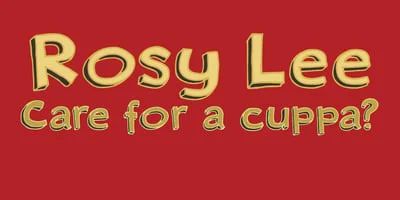
Rosy Lee Font
Rosy Lee Font is perfect for tea shops, British cafes, vintage tearoom signage, afternoon tea invitations, cozy bistro branding, traditional bakeries, English garden parties, quaint bed & breakfasts, and charming British hospitality communications. This delightful typeface brings tea time charm and British countryside warmth to projects requiring cozy typography with traditional appeal and heartwarming character.
What makes Rosy Lee Font exciting is its tea time charm that captures the quintessential warmth of British tea culture and countryside hospitality with remarkable coziness and authentic British character that evokes memories of afternoon tea and garden parties. The font features friendly letterforms with gentle curves and welcoming proportions that reflect the comforting tradition of tea service and the intimate atmosphere of English tearooms. Its heartwarming personality and traditional nature make it irresistible for hospitality brands seeking typography that communicates genuine warmth while celebrating the timeless appeal of British tea culture and countryside charm.
The Rosy Lee Font family includes cozy weights and British styles: Light, Regular, Medium, Bold, and decorative variations with tea alternates and British symbols. Each weight maintains the font's charming character while offering designers creative flexibility for hospitality branding and traditional design applications requiring authentic British atmosphere and tea time visual presentation.
Whether you're designing for tearooms or British-themed venues, Rosy Lee Font offers designers a charming, tradition-focused typeface solution. The font's British aesthetics and cozy styling make it ideal for tea shops, English pubs, countryside inns, and traditional hospitality businesses. Its welcoming presence ensures your message communicates warmth and tradition while maintaining excellent tea time readability. The comprehensive character set includes British symbols and tea decorations, making it perfect for creating inviting headlines and brand identities that celebrate British tea culture and establish memorable connections with audiences seeking authentic British hospitality experiences and traditional tea time traditions.